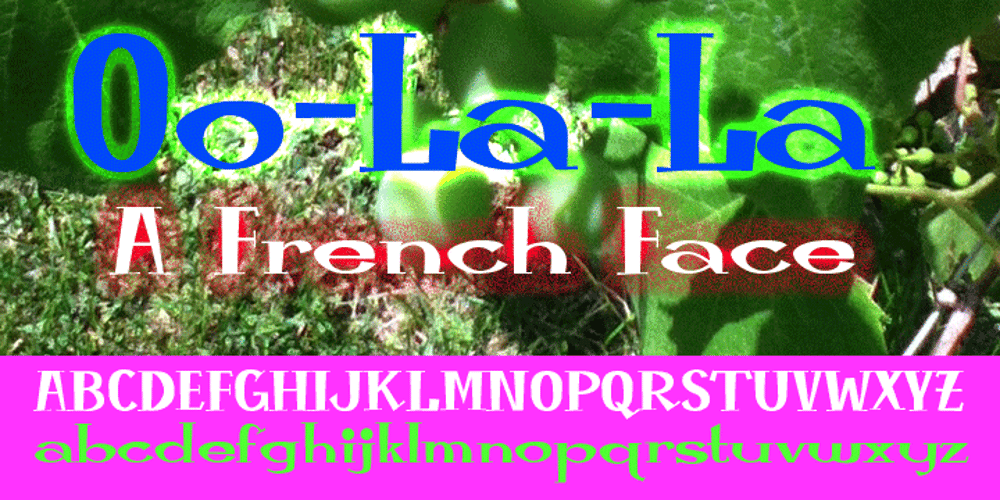
Oo-la-la
Oo-la-la font
Oo-la-la Font Family was designed by Stephen Boss and published by Emboss. Oo-la-la contains 1 styles and family package options. Inspired by old French poster art. This typeface was cut from an old rubylith.